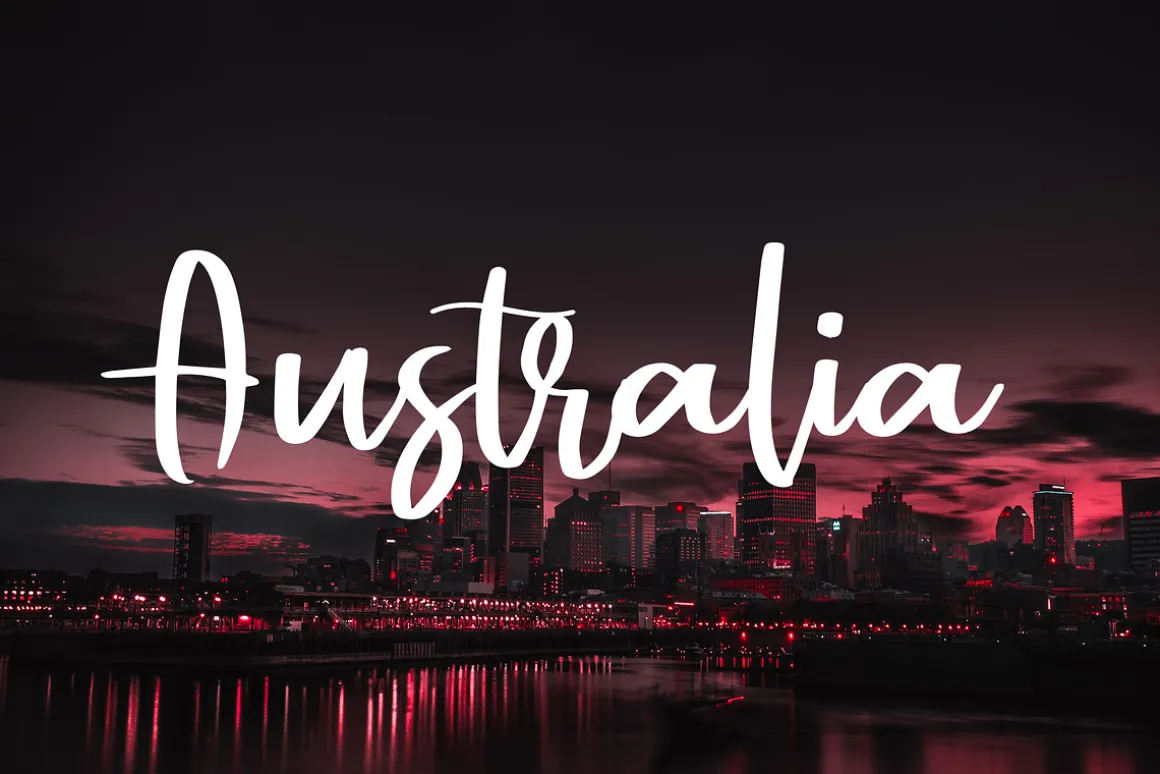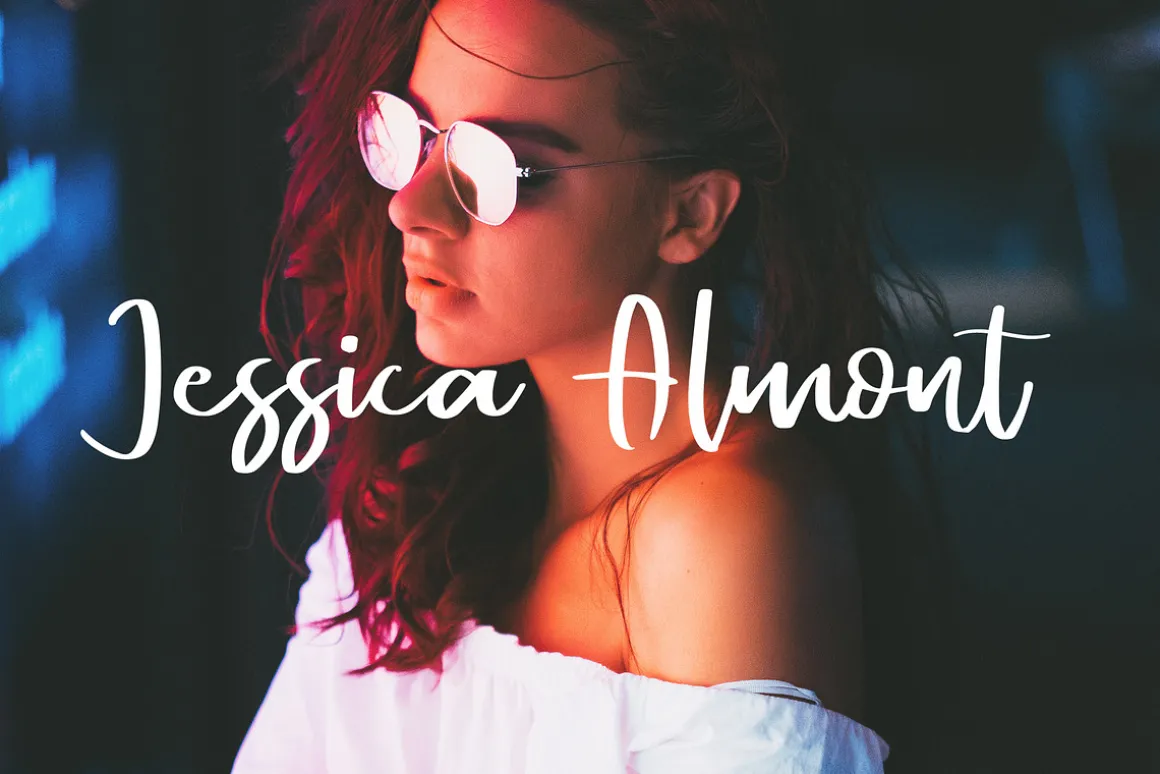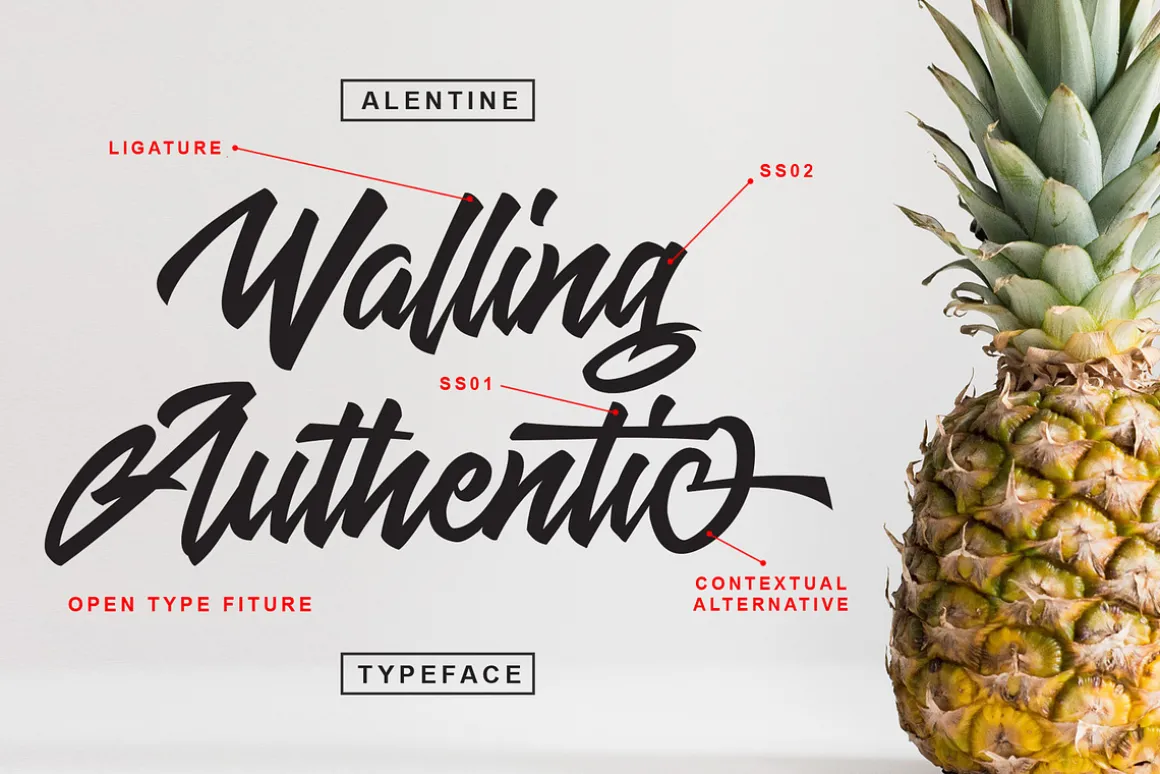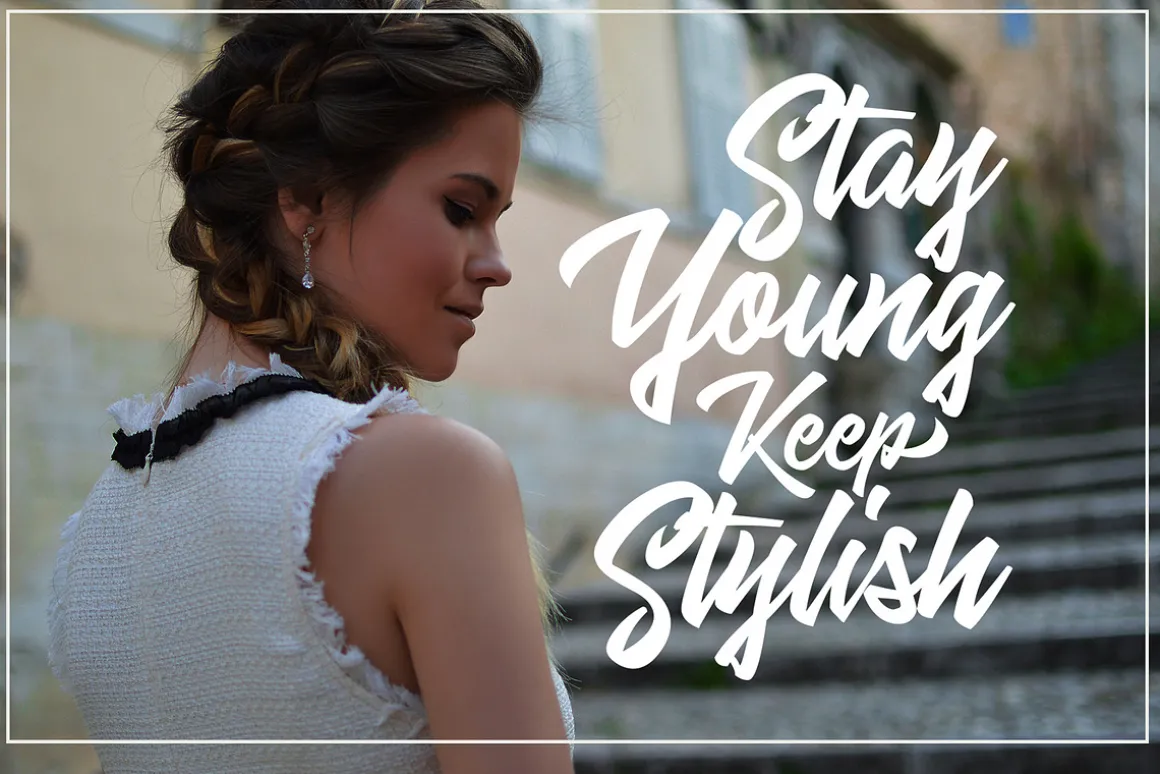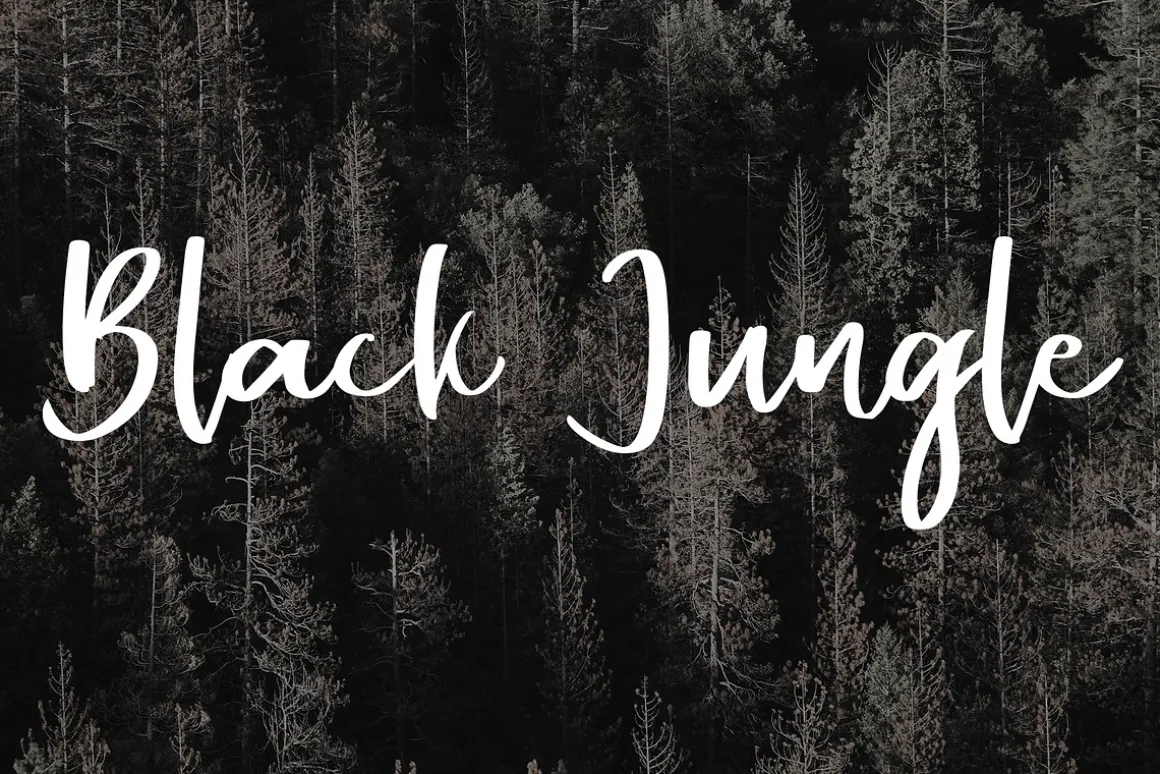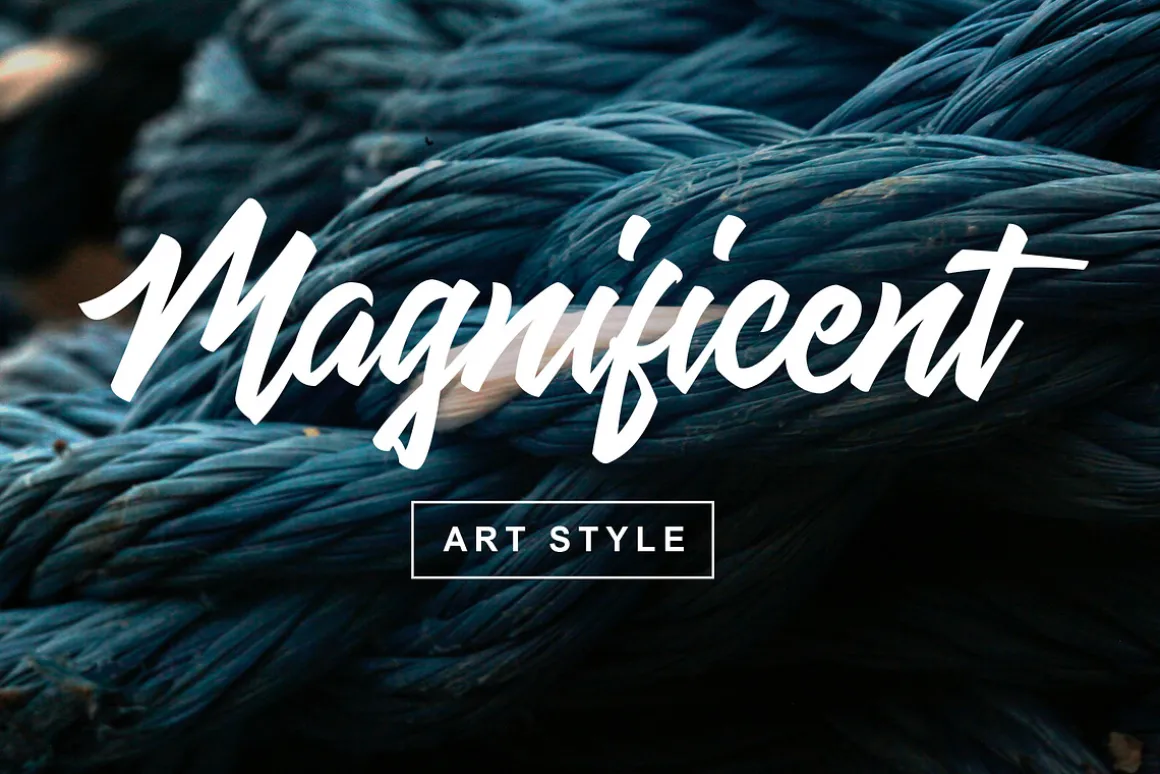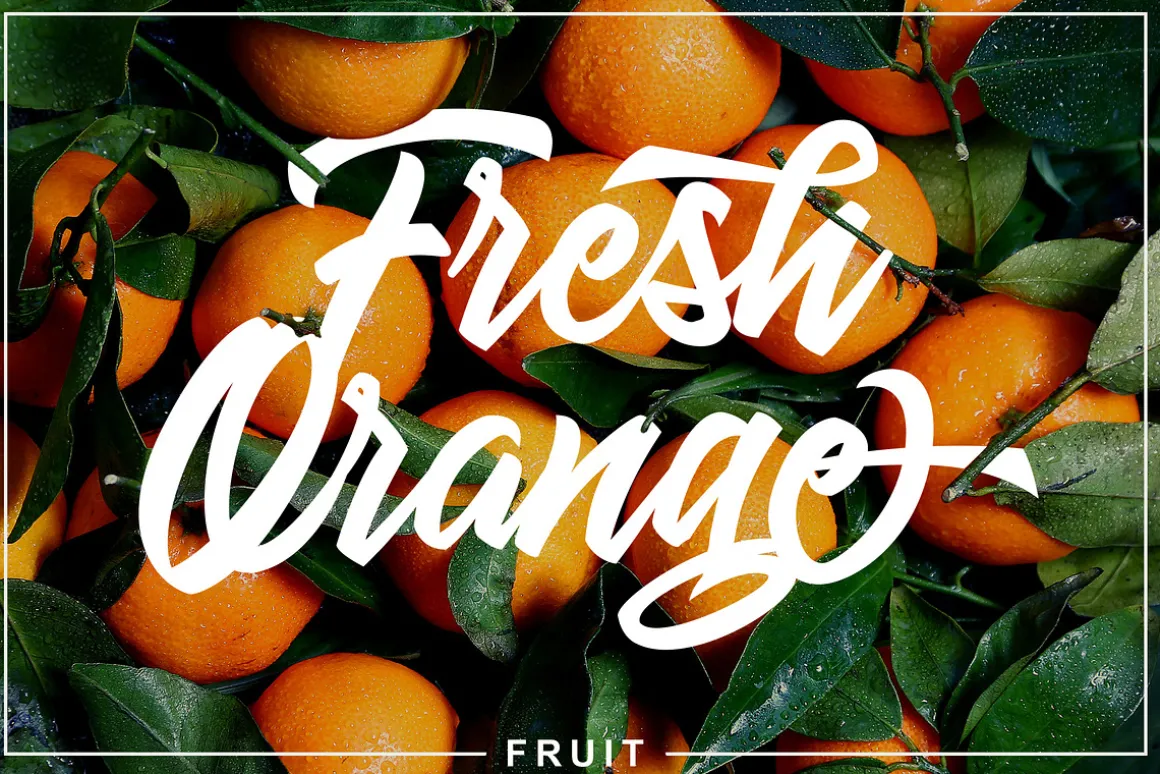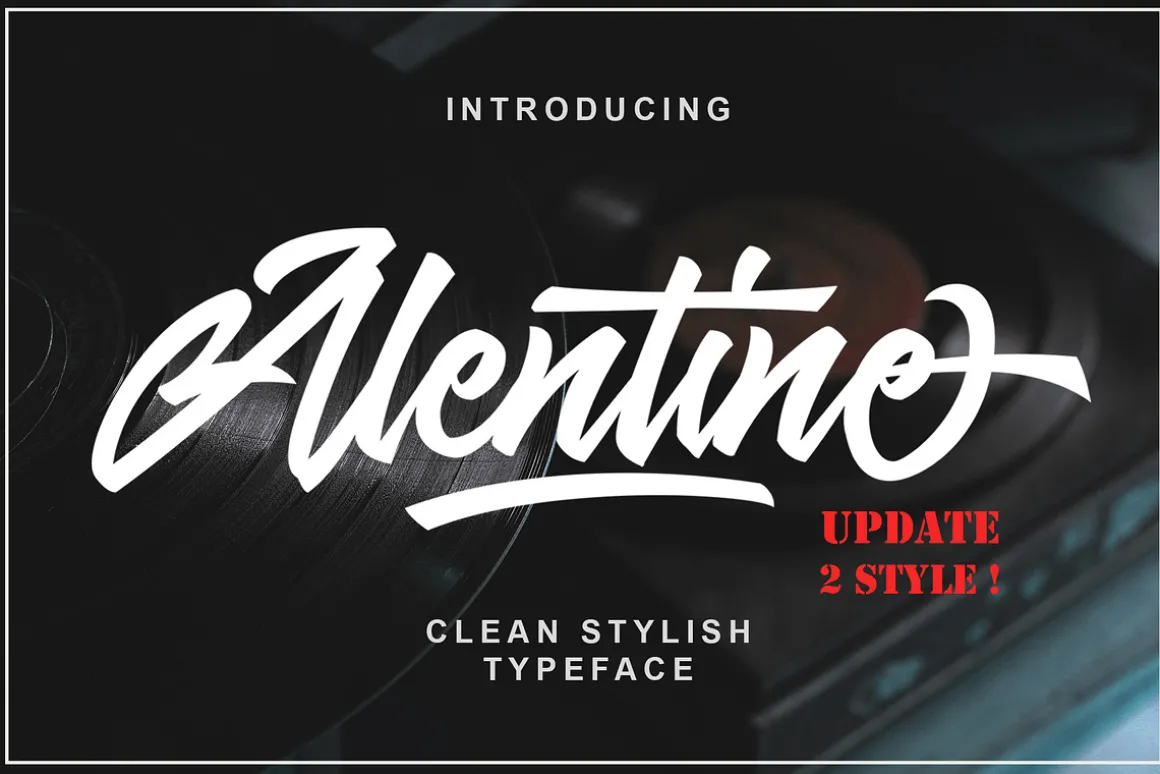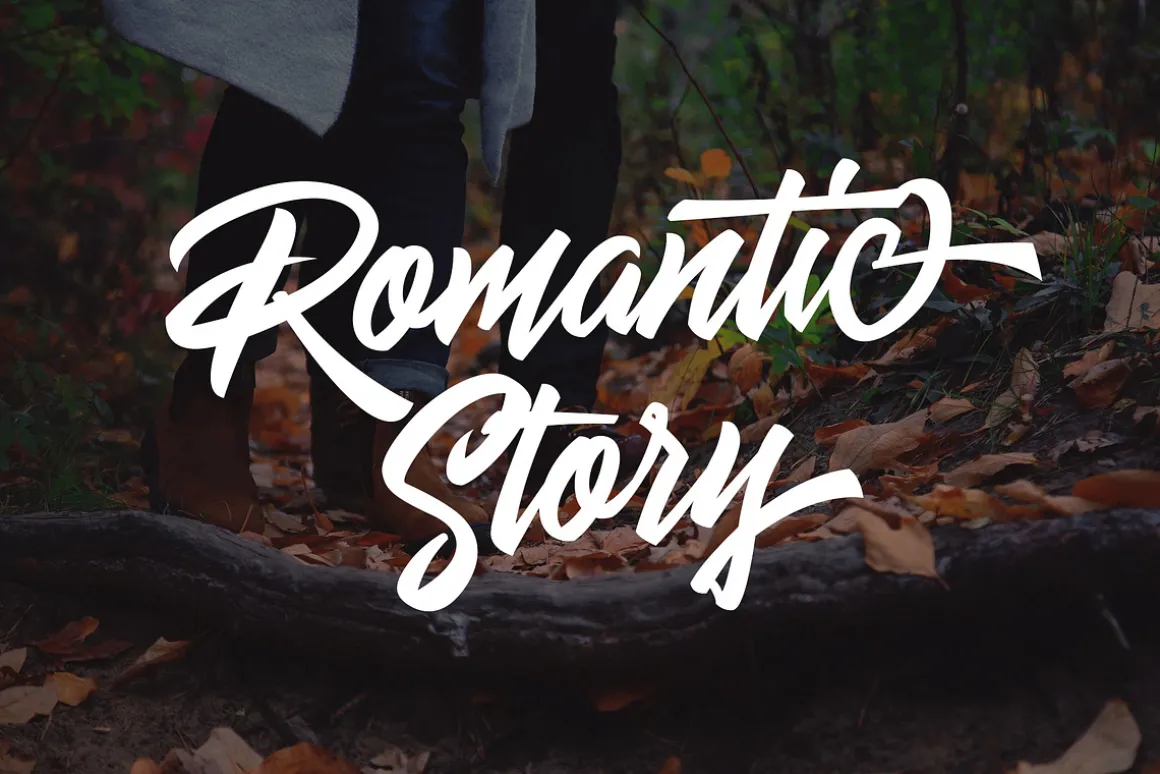
Alentine is a Clean and stylish script typeface. Very ideal for logos, name tag, quotes, packaging, merchandise, greeting cards. Alentine contains a full set of lower & uppercase, alternative characters, punctuation, numerals, and 17 multilingual support(Afrikaans, Albanian, Catalan, Danish, Dutch, English, Estonian, Finnish, French, German, Icelandic, Italian, Norwegian, Portugese, Spanisch, Swedish, Zulu) .
The alternative characters in this typeface were divided into several OpenType features such as Stylistic Alternates, Stylistic Sets,Contextual alternative and Ligature.